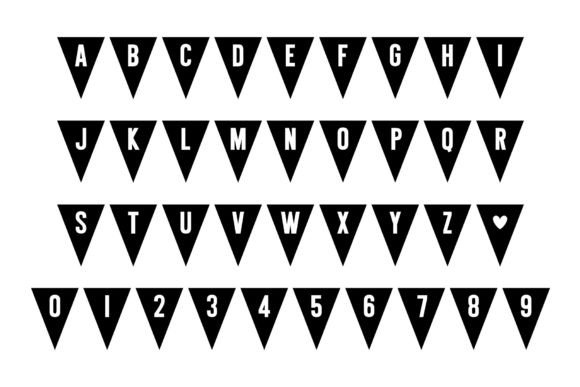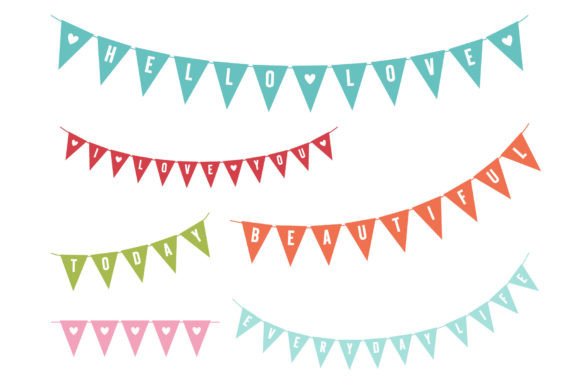
Unlock Creative Messaging with Banner Font 2
Are you looking for a way to elevate your designs and add a touch of personality to your messaging? Look no further than Banner Font 2, the ultimate artistic tool for transforming simple vector curves into vibrant messaging pathways. With this innovative font, you can turn ordinary text into dynamic, visually stunning banners that capture attention and leave a lasting impression.
The Power of Banner Font 2
Banner Font 2 is more than just a font – it’s a creative solution that allows you to tailor-make dynamic banners with ease. By simply stroking a line and adding your unique words, you can breathe life into your creations and give each message a distinctive pathway to follow. This font is perfect for designers, crafters, and anyone looking to add a touch of artistry to their work.
Key Features of Banner Font 2
- Easy to Use: Banner Font 2 is incredibly easy to use, even for those with limited design experience. Simply type out your message, apply the font, and adjust the settings to achieve the desired effect.
- Customizable: With Banner Font 2, you have complete control over the design of your banners. Adjust the line width, color, and style to match your brand or personal aesthetic.
- Vibrant Messaging Pathways: This font allows you to create dynamic, winding pathways that add visual interest to your text. Perfect for creating eye-catching headlines, titles, and more.
- Scalable: Banner Font 2 is designed to work seamlessly with a variety of design software, making it easy to scale your designs up or down as needed.
Applications for Designers and Crafters
Banner Font 2 is an incredibly versatile tool that can be used in a wide range of design applications. Here are just a few ideas to get you started:
- Sign Making: Create eye-catching signs for your business or personal projects. Perfect for storefronts, events, and more.
- Graphic Design: Add a touch of personality to your graphic designs with custom banners and titles.
- Crafting: Use Banner Font 2 to create unique and personalized crafts, such as handmade cards, gift tags, and more.
- Digital Art: Incorporate dynamic banners into your digital art pieces for added visual interest.
Tips and Tricks for Getting the Most Out of Banner Font 2
To help you get started with Banner Font 2, here are a few tips and tricks to keep in mind:
- Experiment with Different Line Widths: Varying the line width can add depth and interest to your banners.
- Play with Color: Don’t be afraid to try out different color combinations to find the perfect match for your design.
- Adjust the Pathway Settings: Tweak the pathway settings to achieve the desired level of curvature and flow.
Banner Font 2 is a game-changing tool for designers and crafters looking to elevate their work and add a touch of personality to their messaging. With its ease of use, customizability, and vibrant messaging pathways, this font is sure to become a go-to in your design arsenal. So why wait? Unlock the full potential of your designs with Banner Font 2 and start creating stunning, one-of-a-kind banners today!